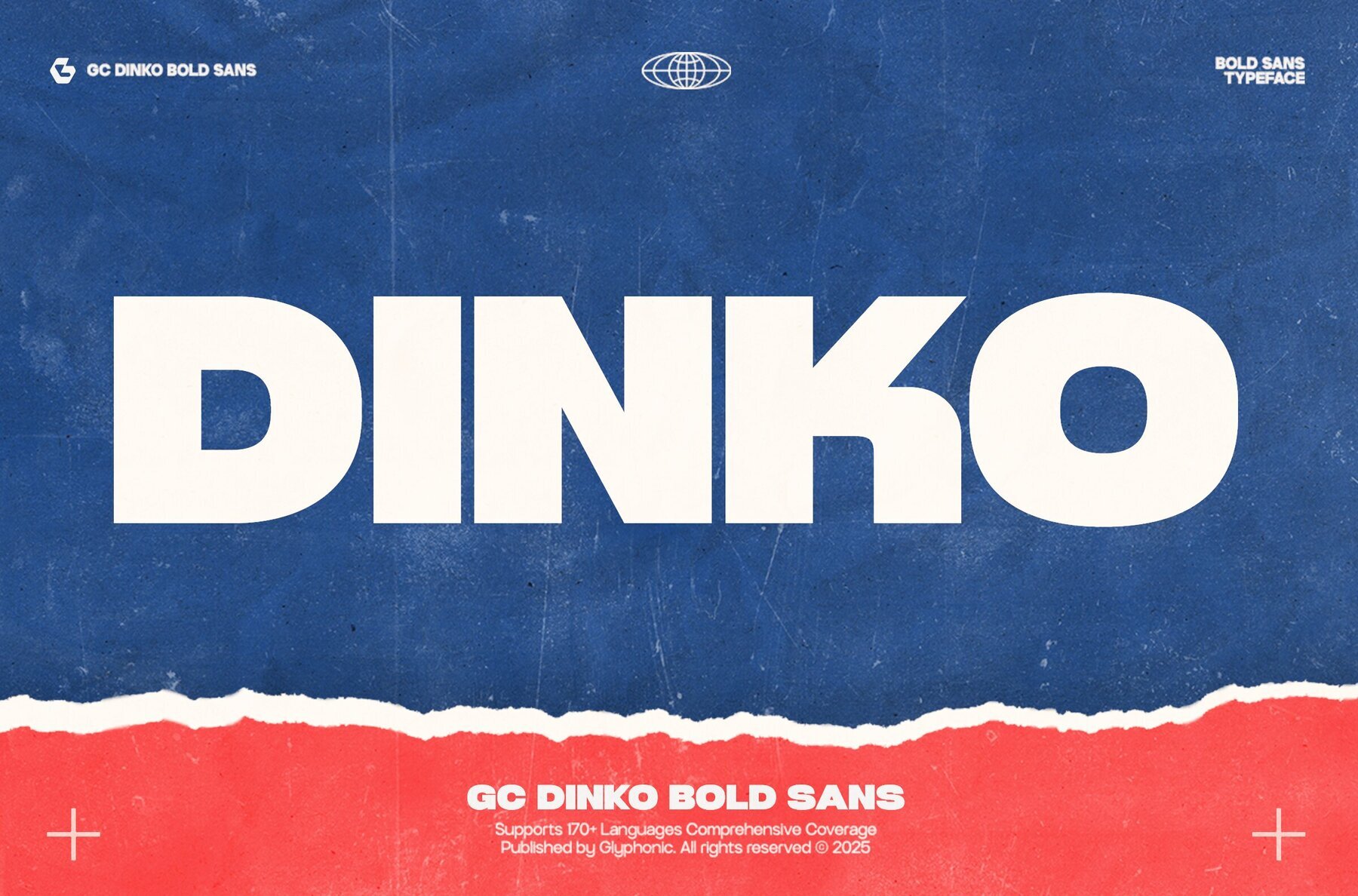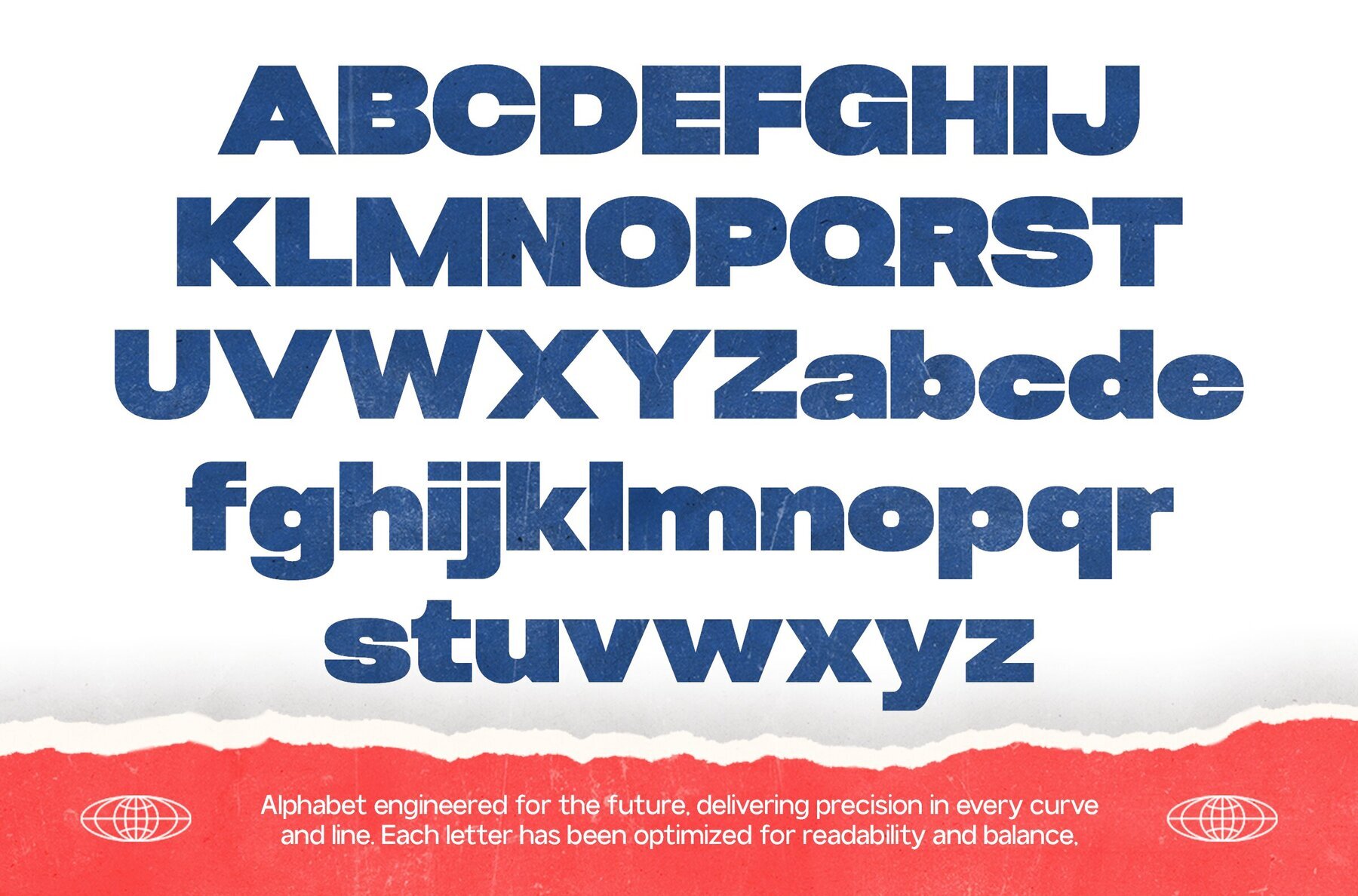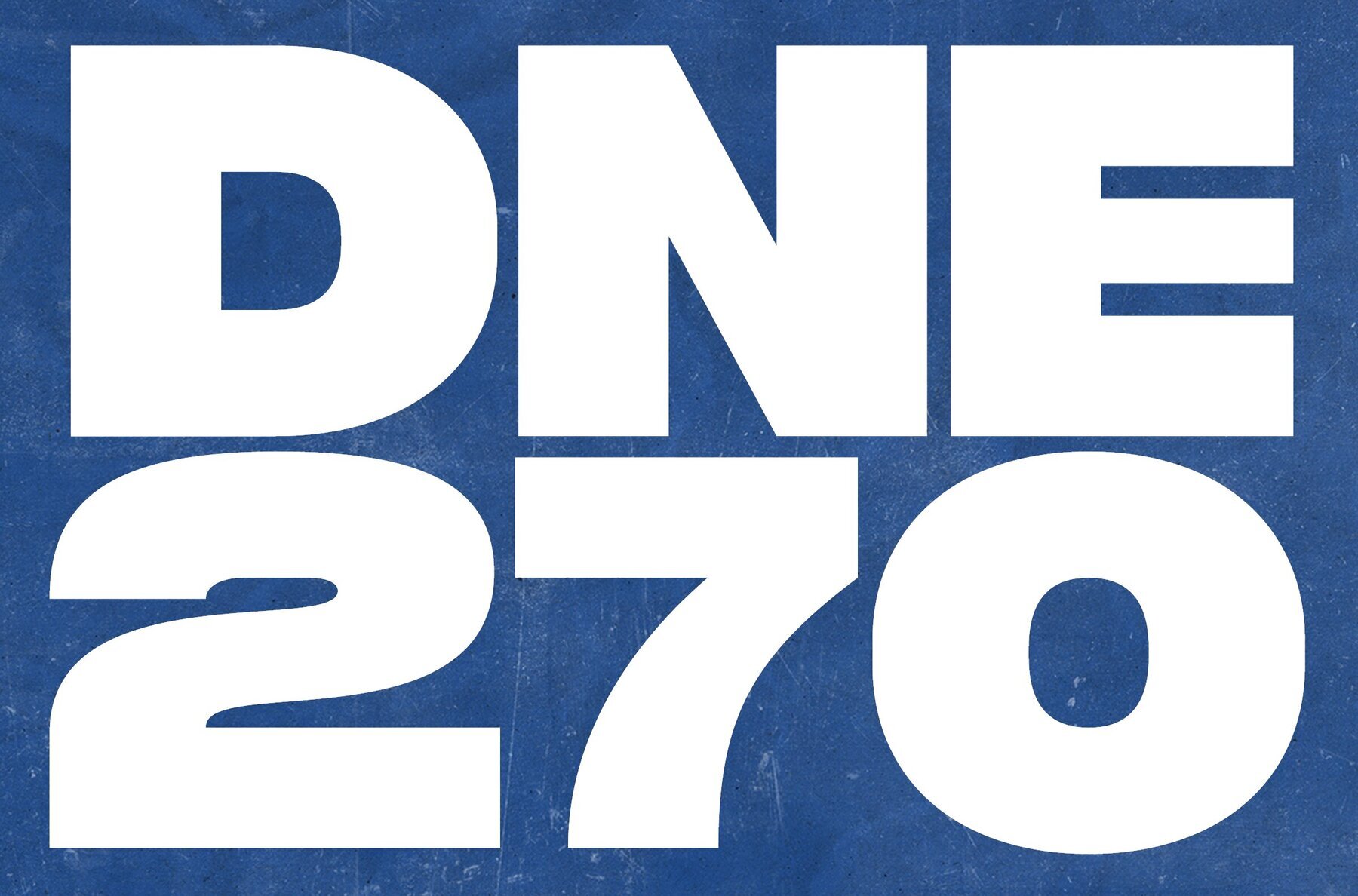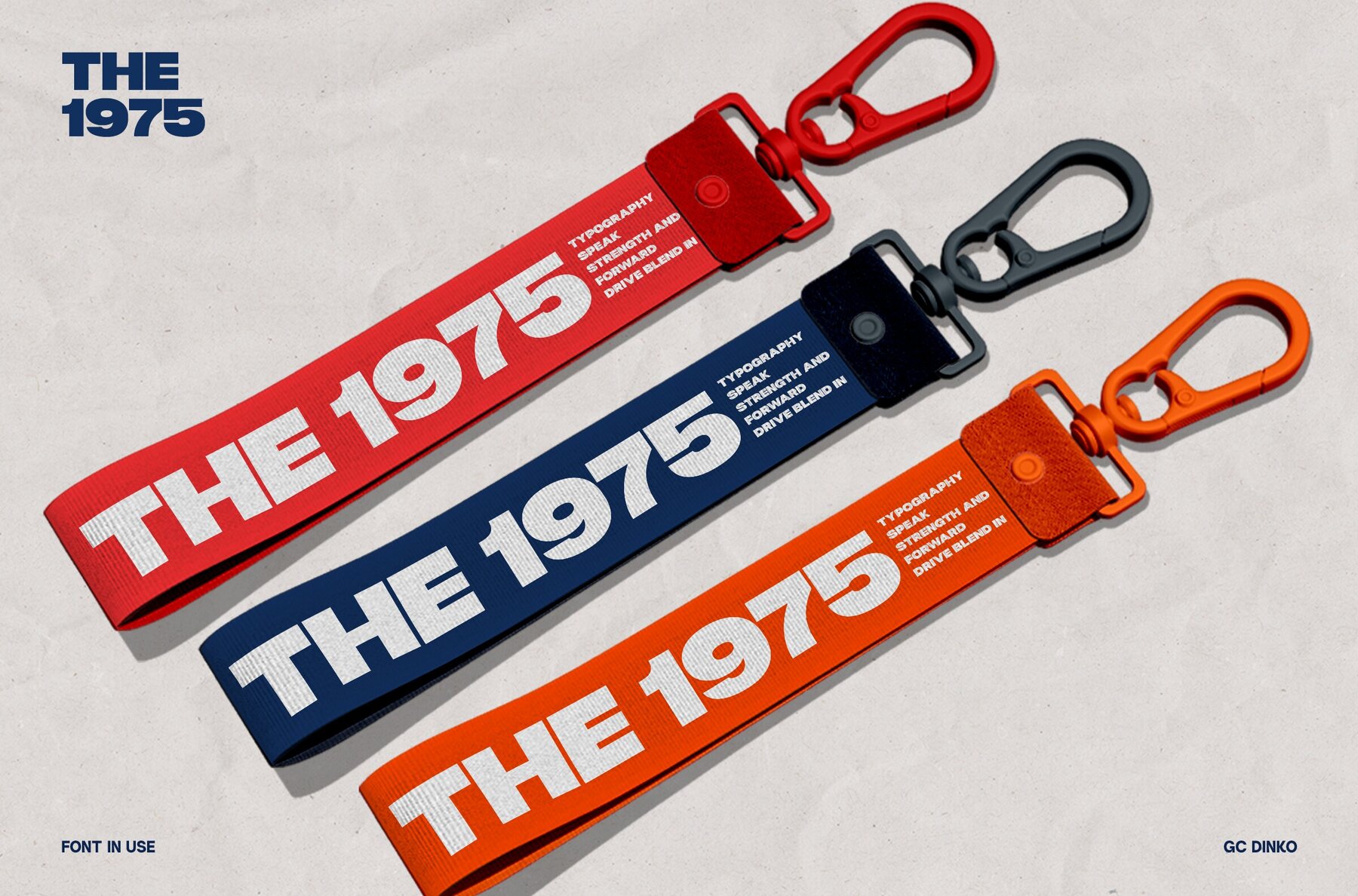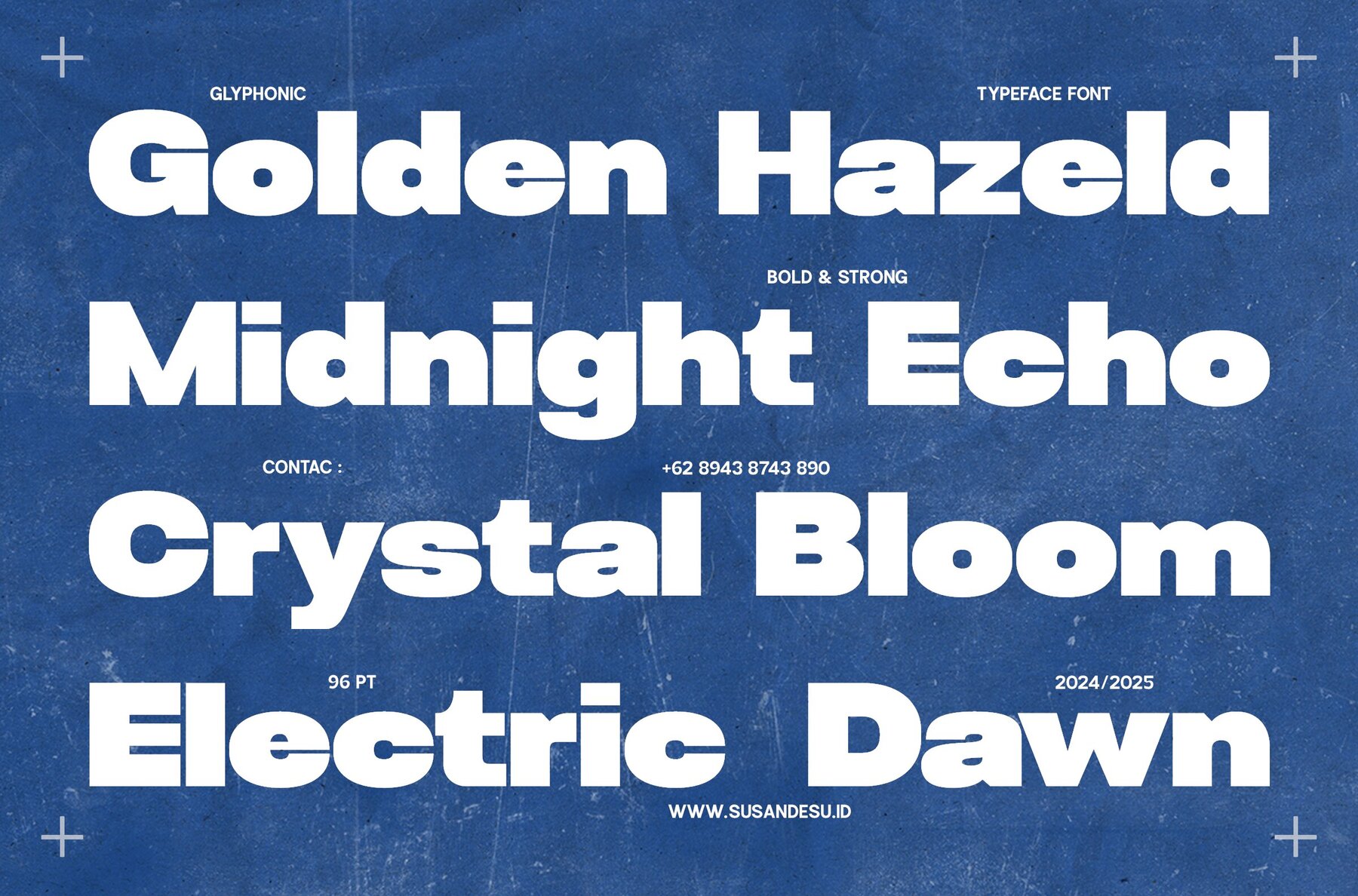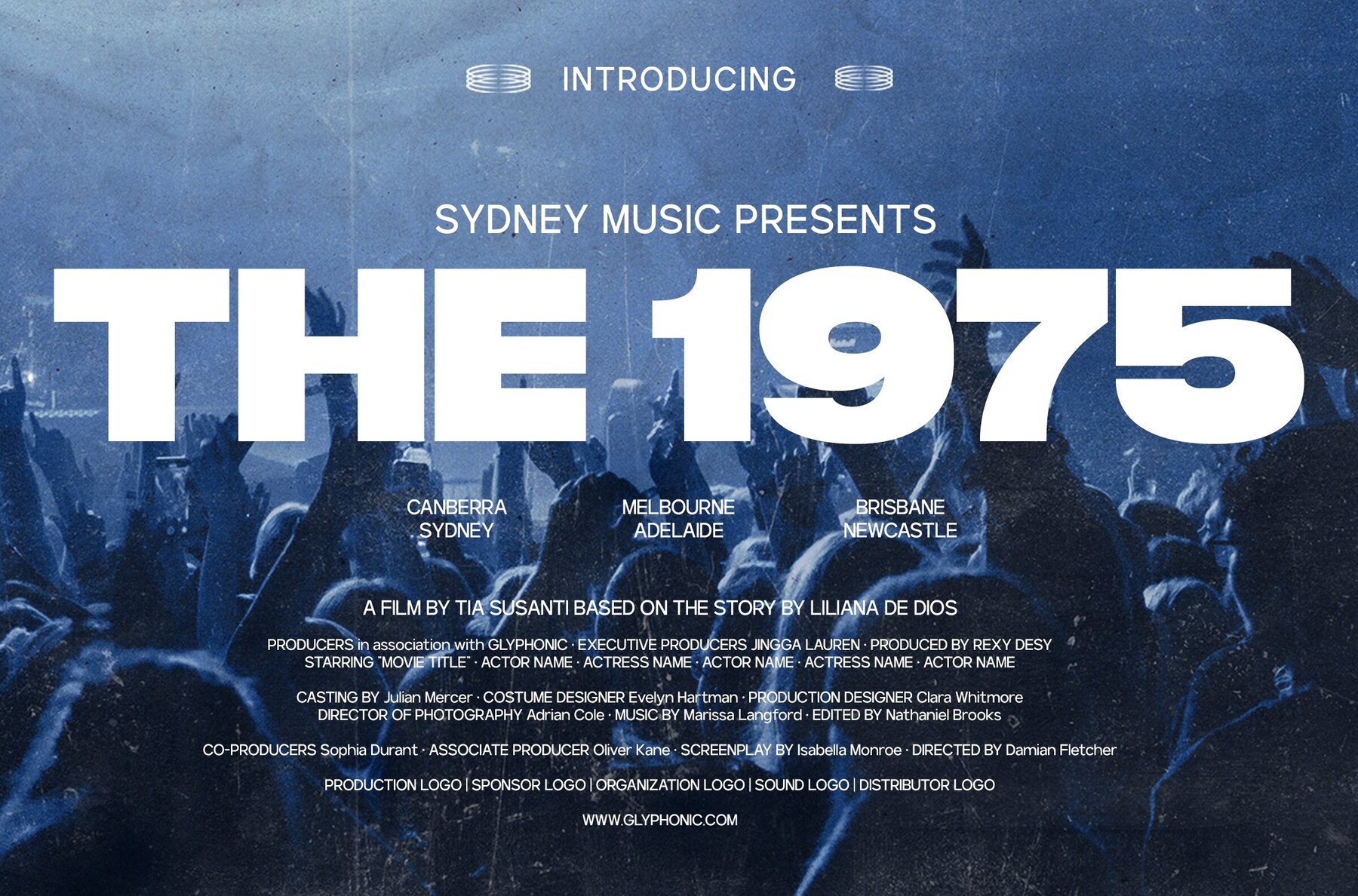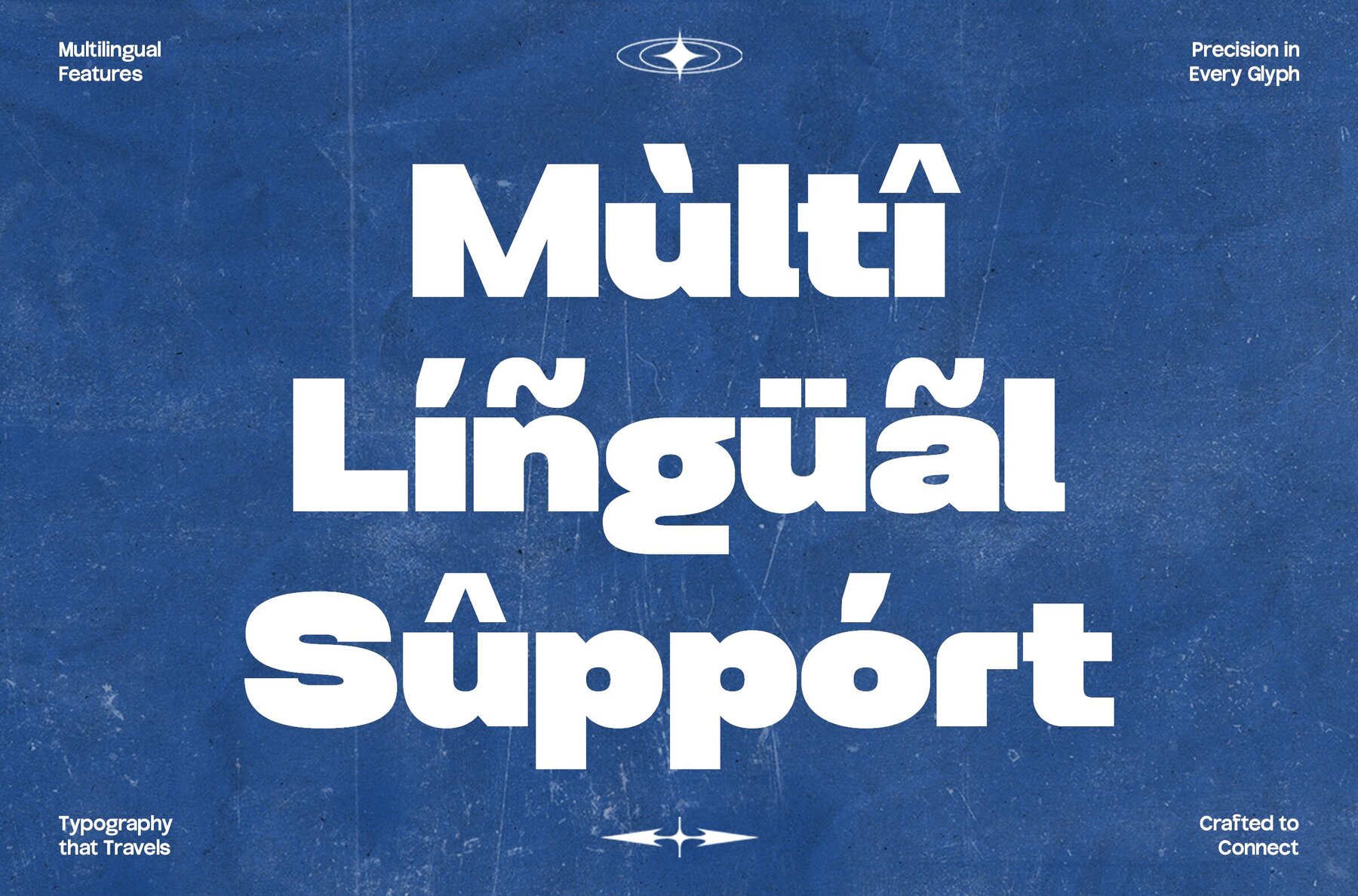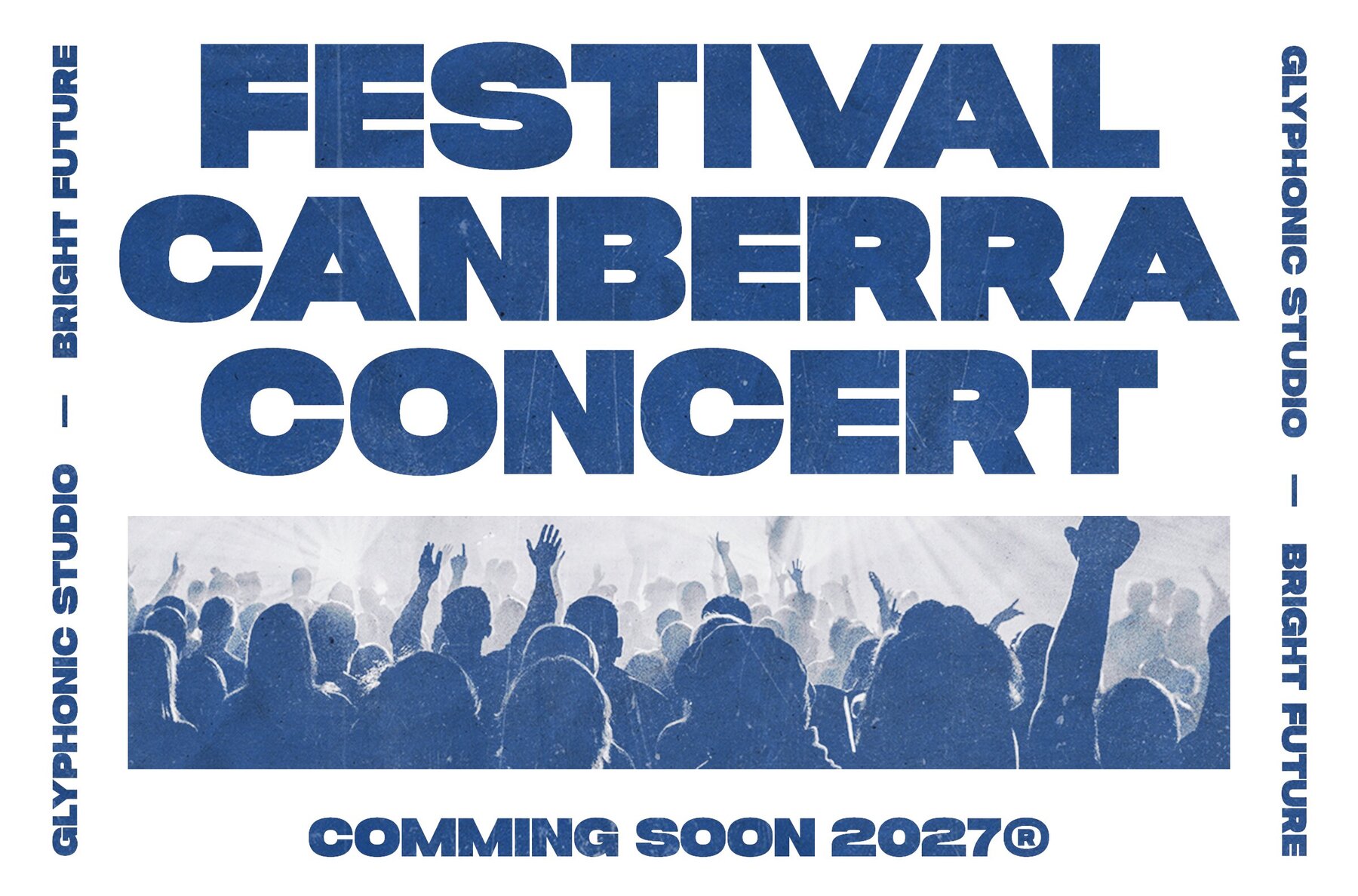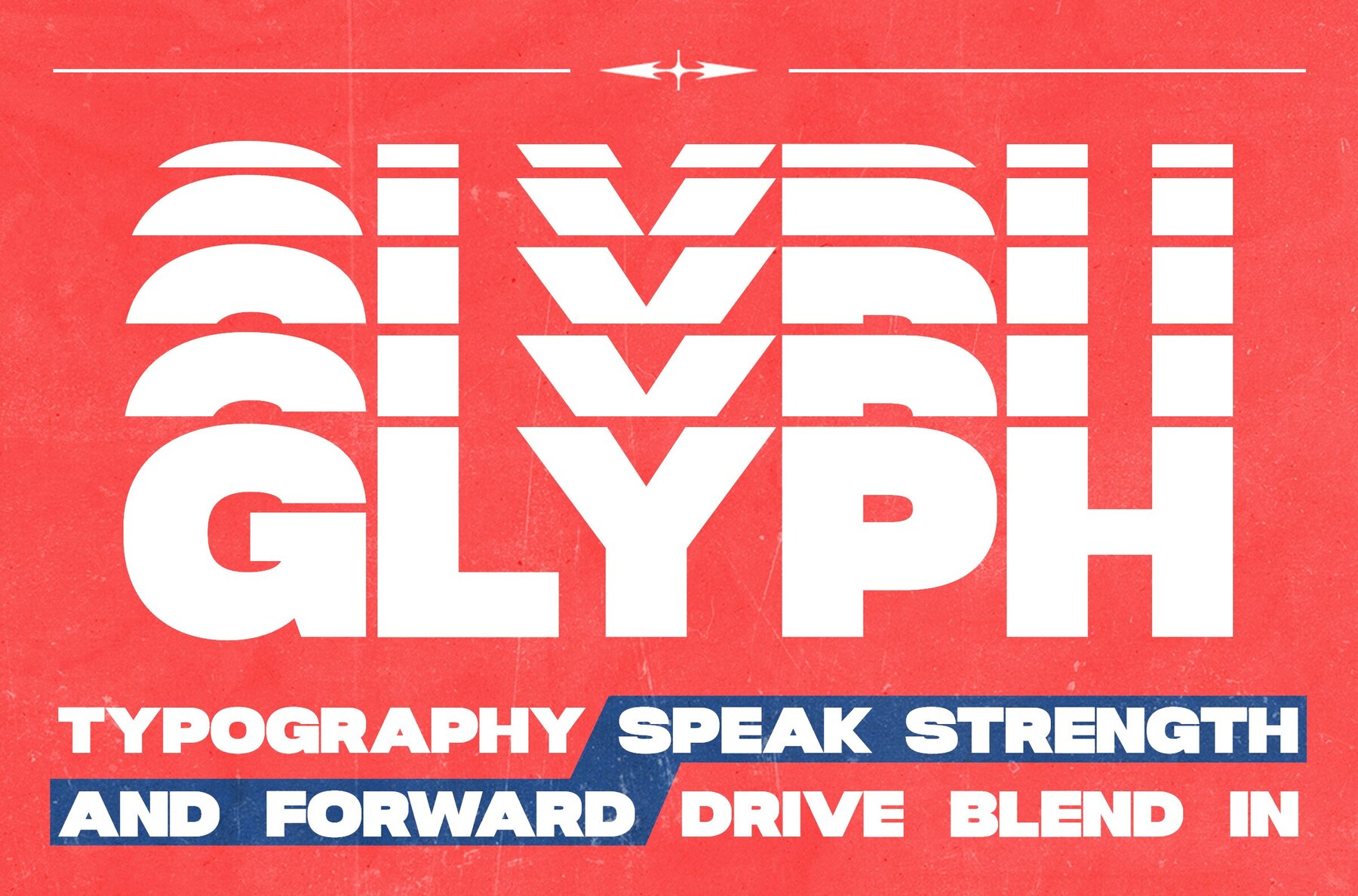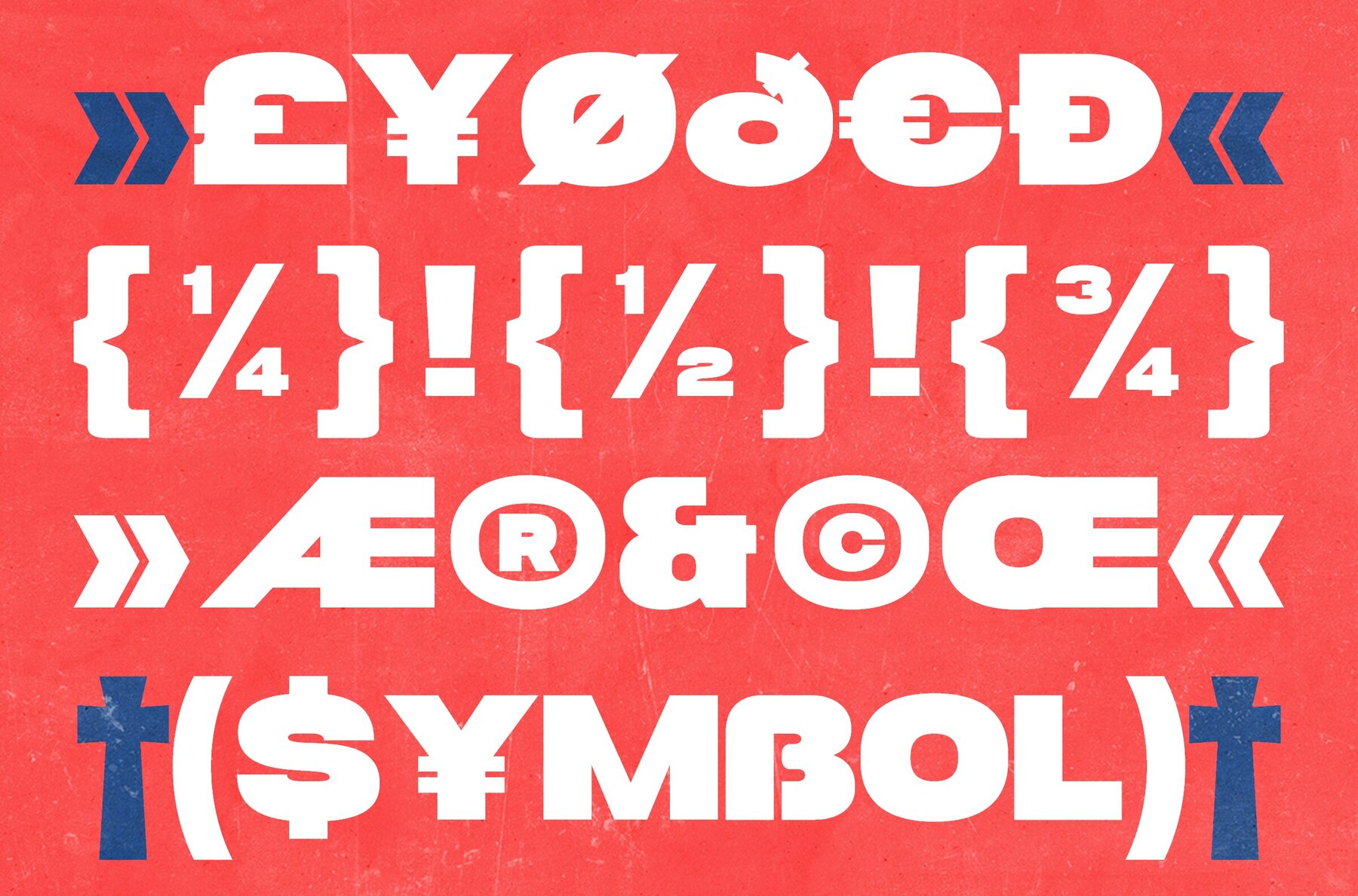
GC DINKO Font
GC DINKO Regular
Embrace a fusion of vintage charm and modern sensibilities with GC Dinko, a bold retro sans typeface. Its robust geometric shapes and confident presence infuse energy and nostalgic allure into your typography designs. Whether crafting posters, headlines, or logos, GC Dinko establishes a striking statement across all mediums. The typeface's distinctive proportions, sharp edges, and timeless retro aesthetics offer an elegant balance of classic inspiration and contemporary functionality. Ideal for creating attention-grabbing titles, retro-themed packaging, or engaging social media graphics, GC Dinko brings dynamic character and expressive individuality to each letter.GC Dinko: A Bold Retro Sans Typeface